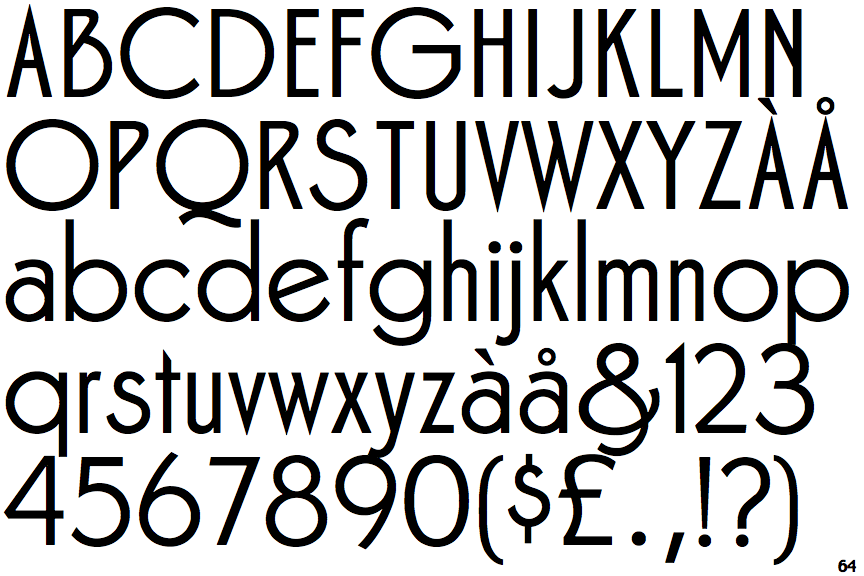
Review Of Free Zone Bold Font Free Download Ideas
Review Of Free Zone Bold Font Free Download Ideas. Zona pro bold file name: Helvetica bold font is a group member of the sans serif family, which is designed in.
A sans serif design that follows a continental style with design characteristics that combine condensed and open counters. Zone extra bold is available in opentype, postscript, truetype for. If you want to create professional printout, you should consider a commercial font.
A Sans Serif Design That Follows A Continental Style With Design Characteristics That Combine Condensed And Open Counters.